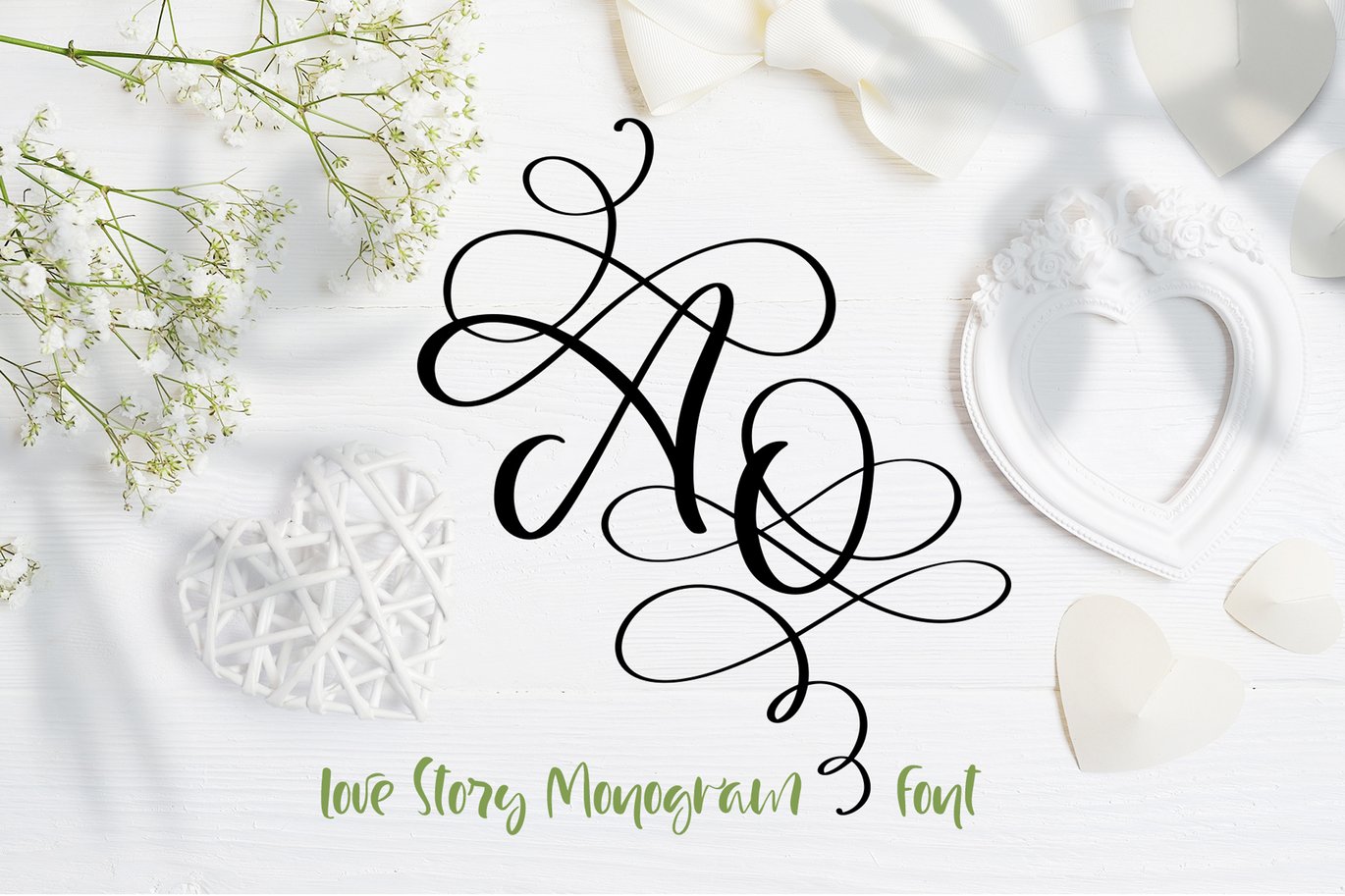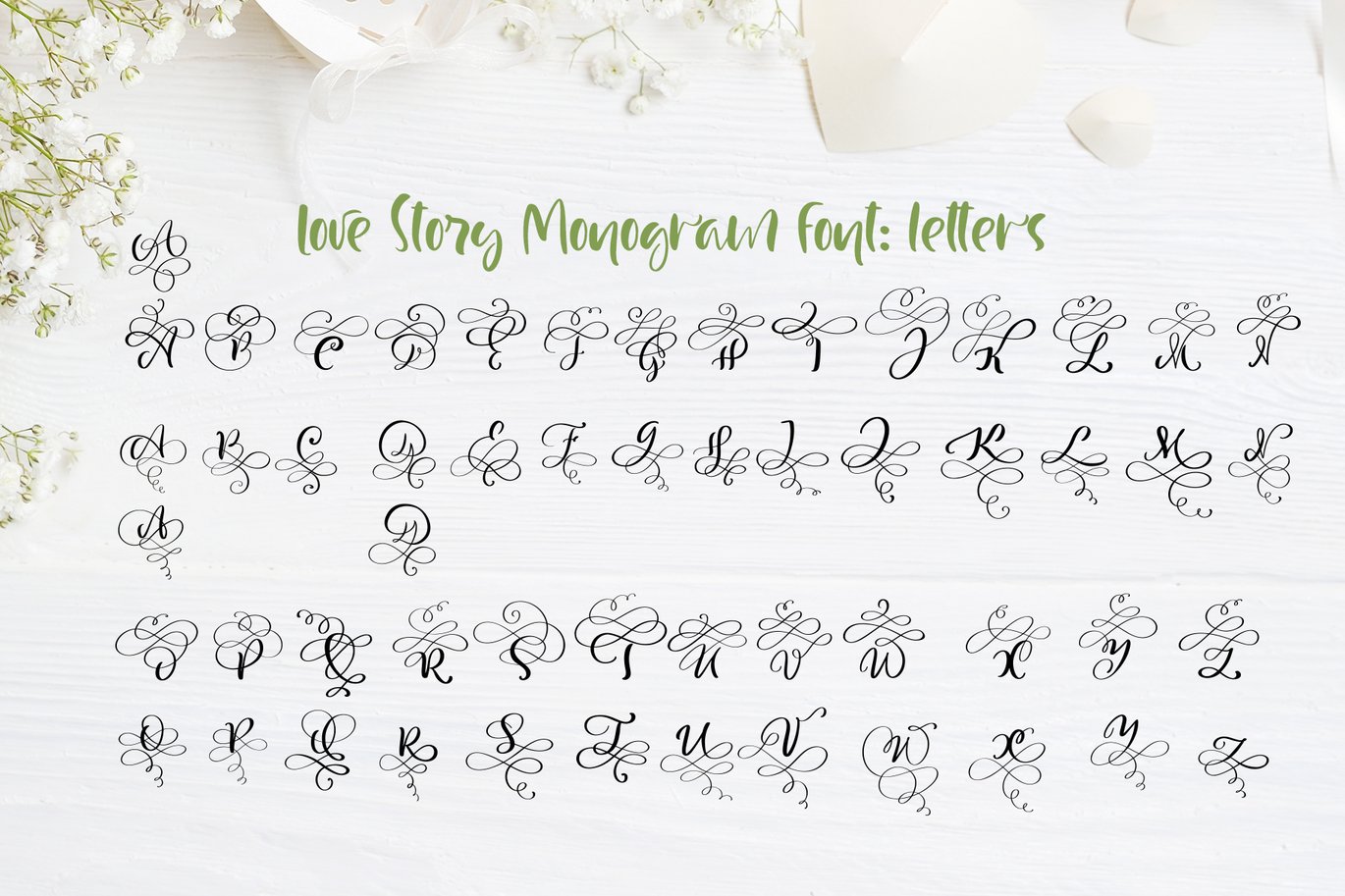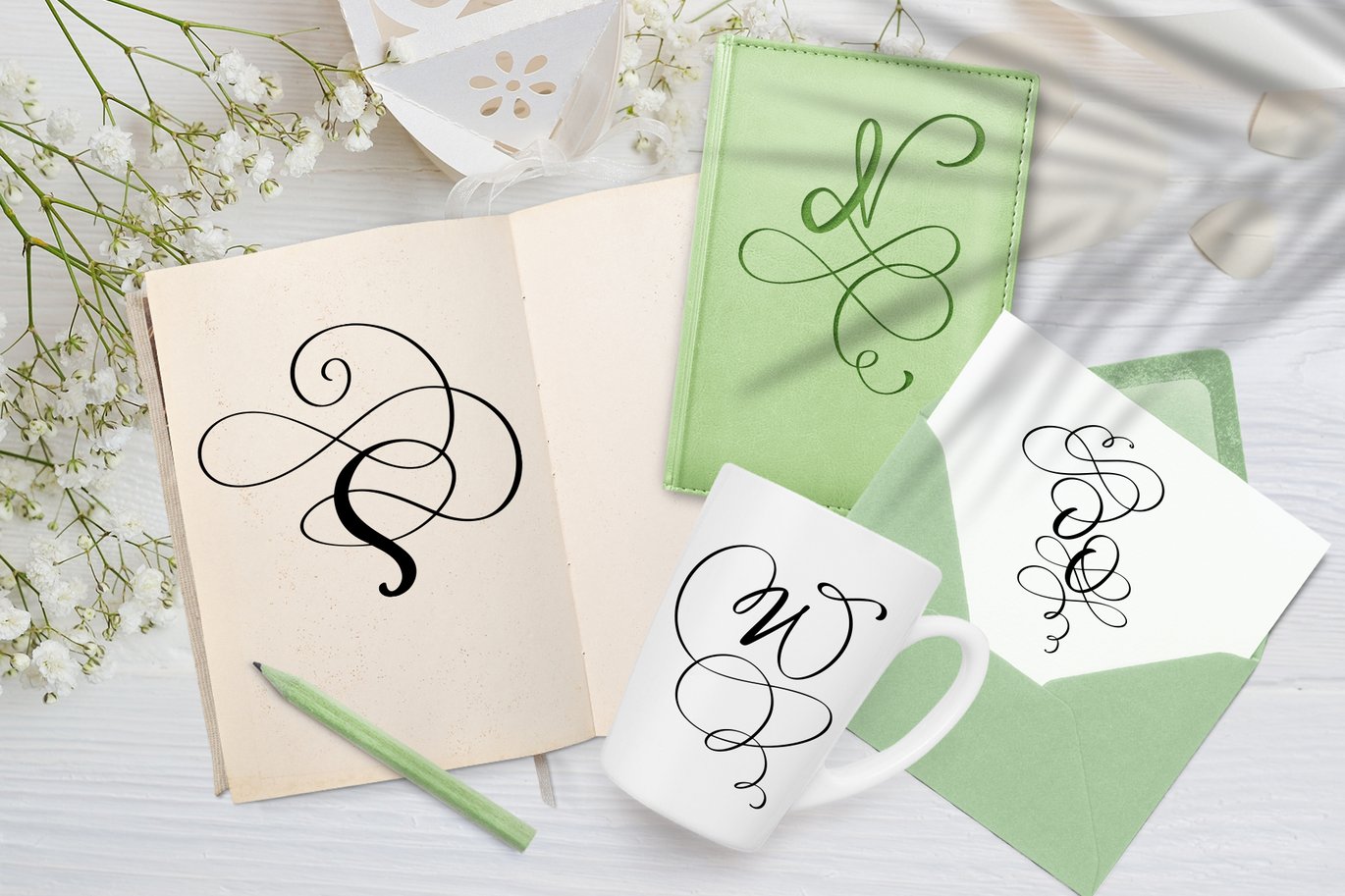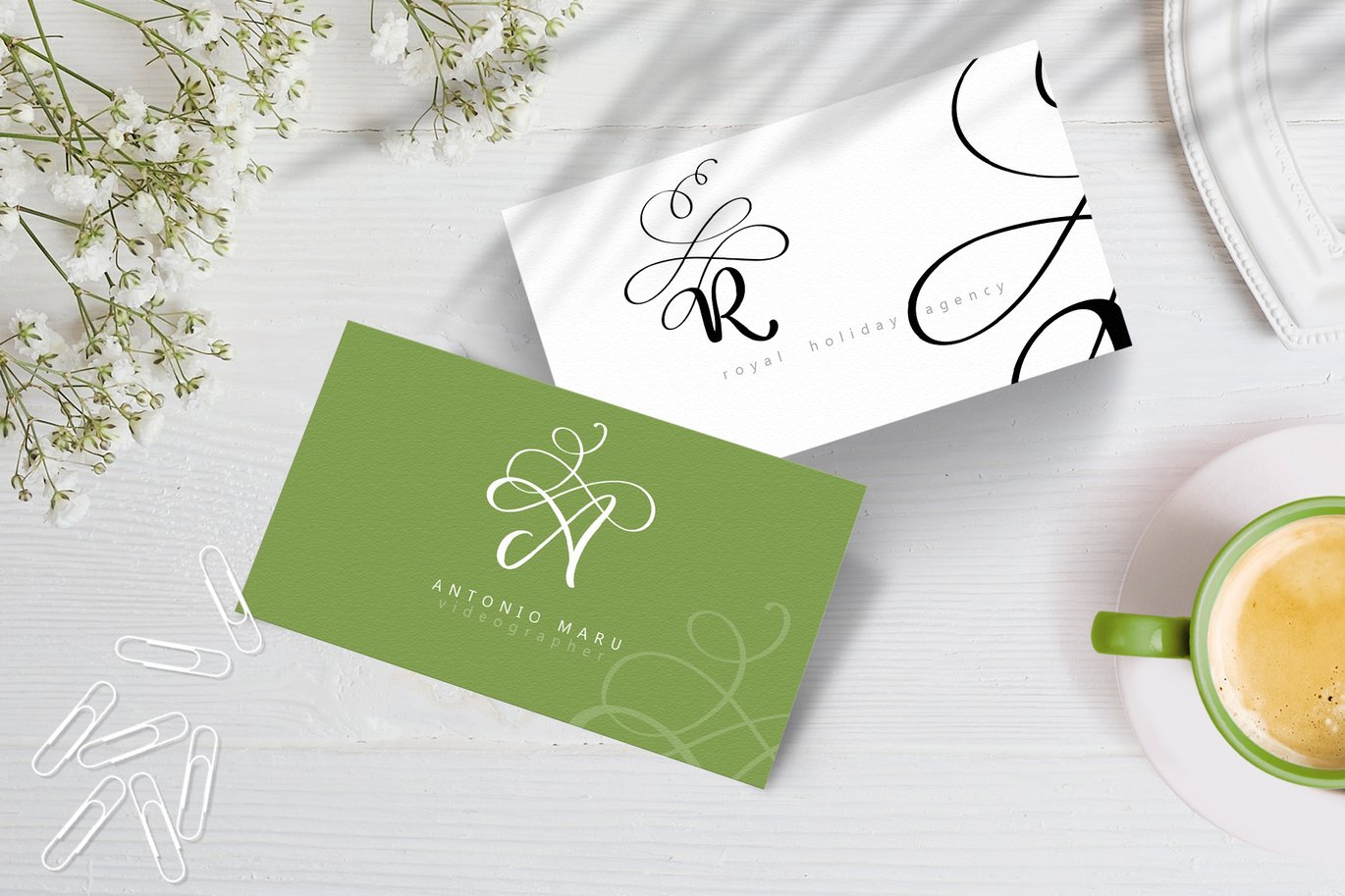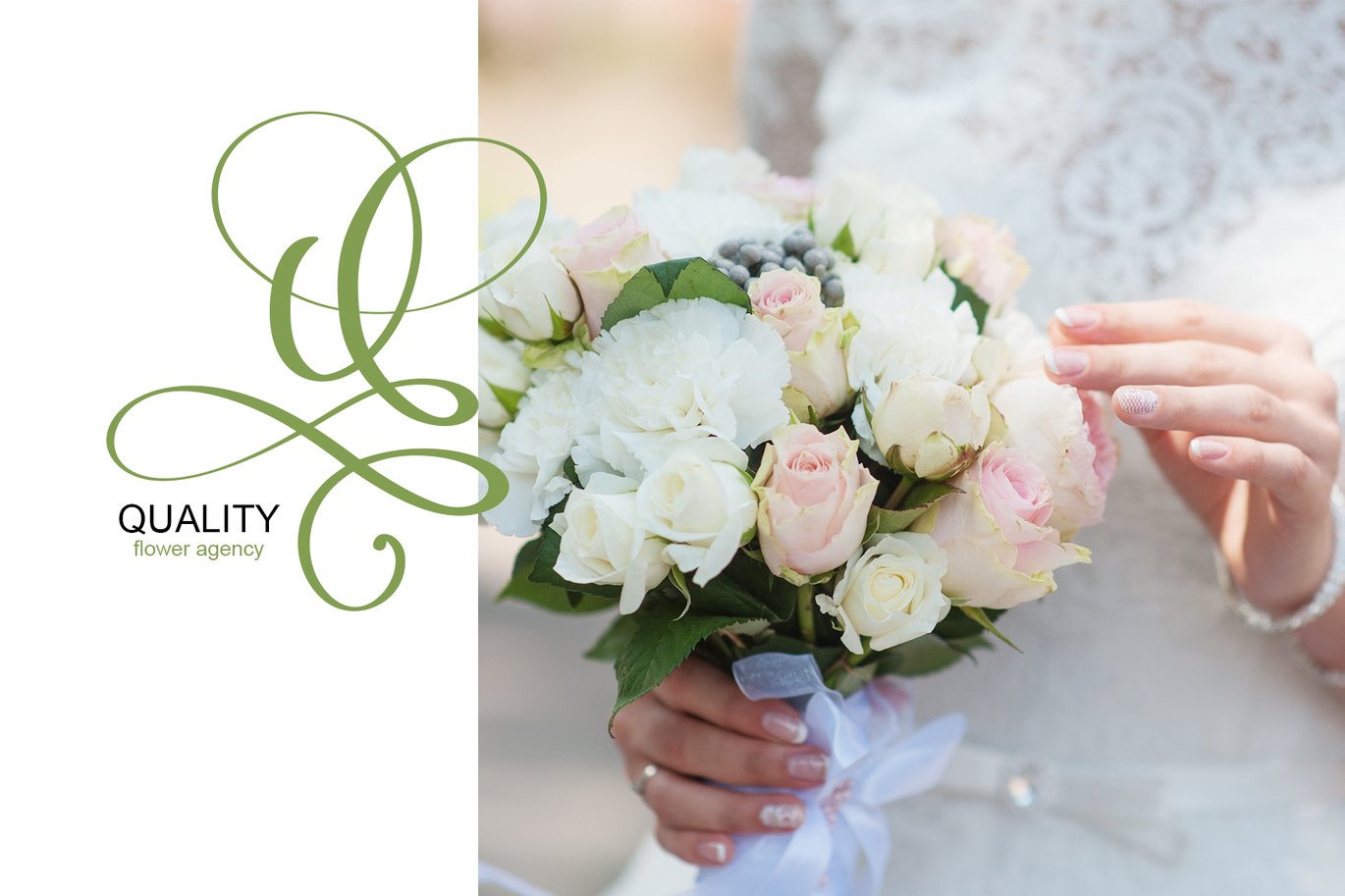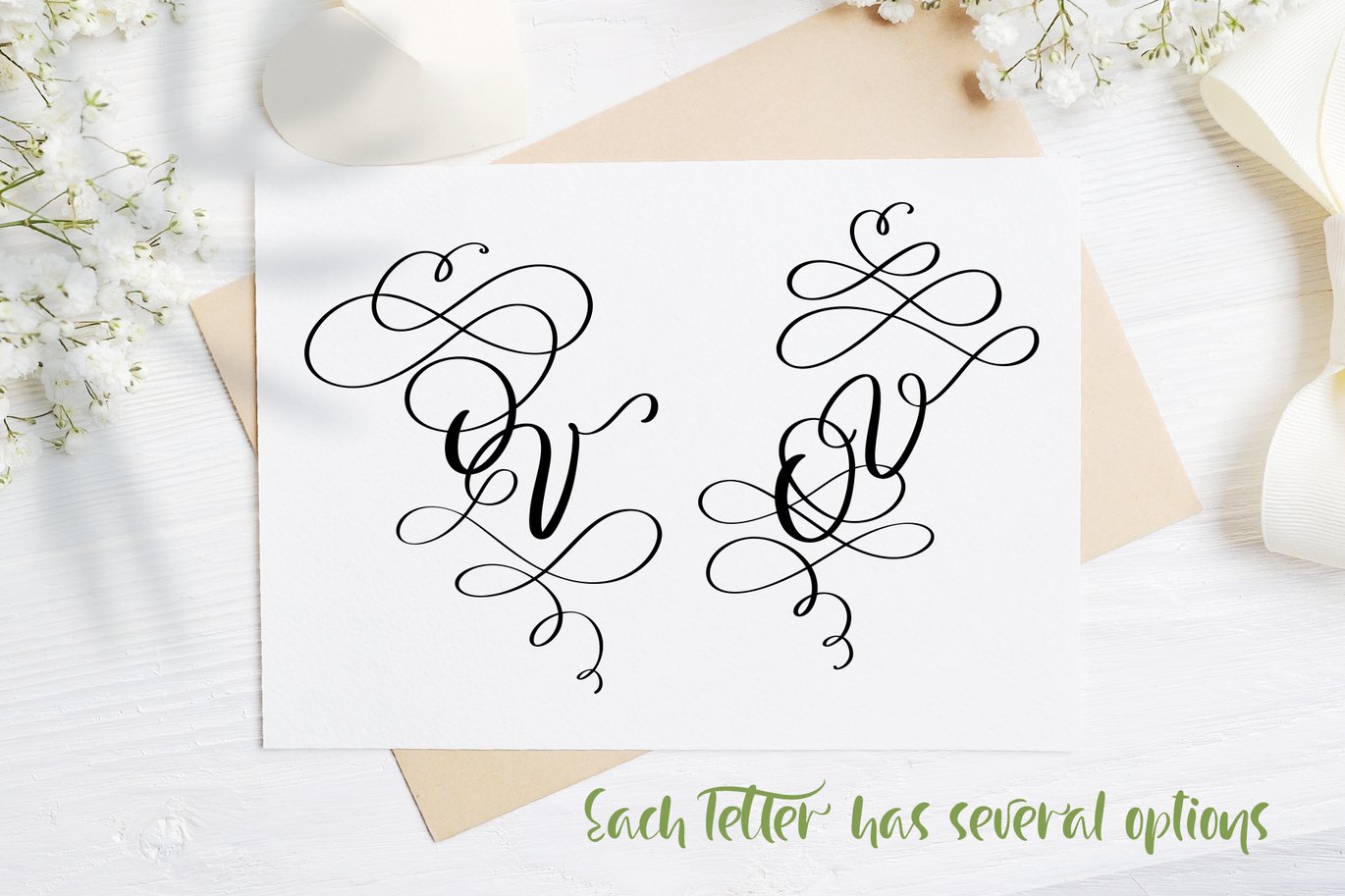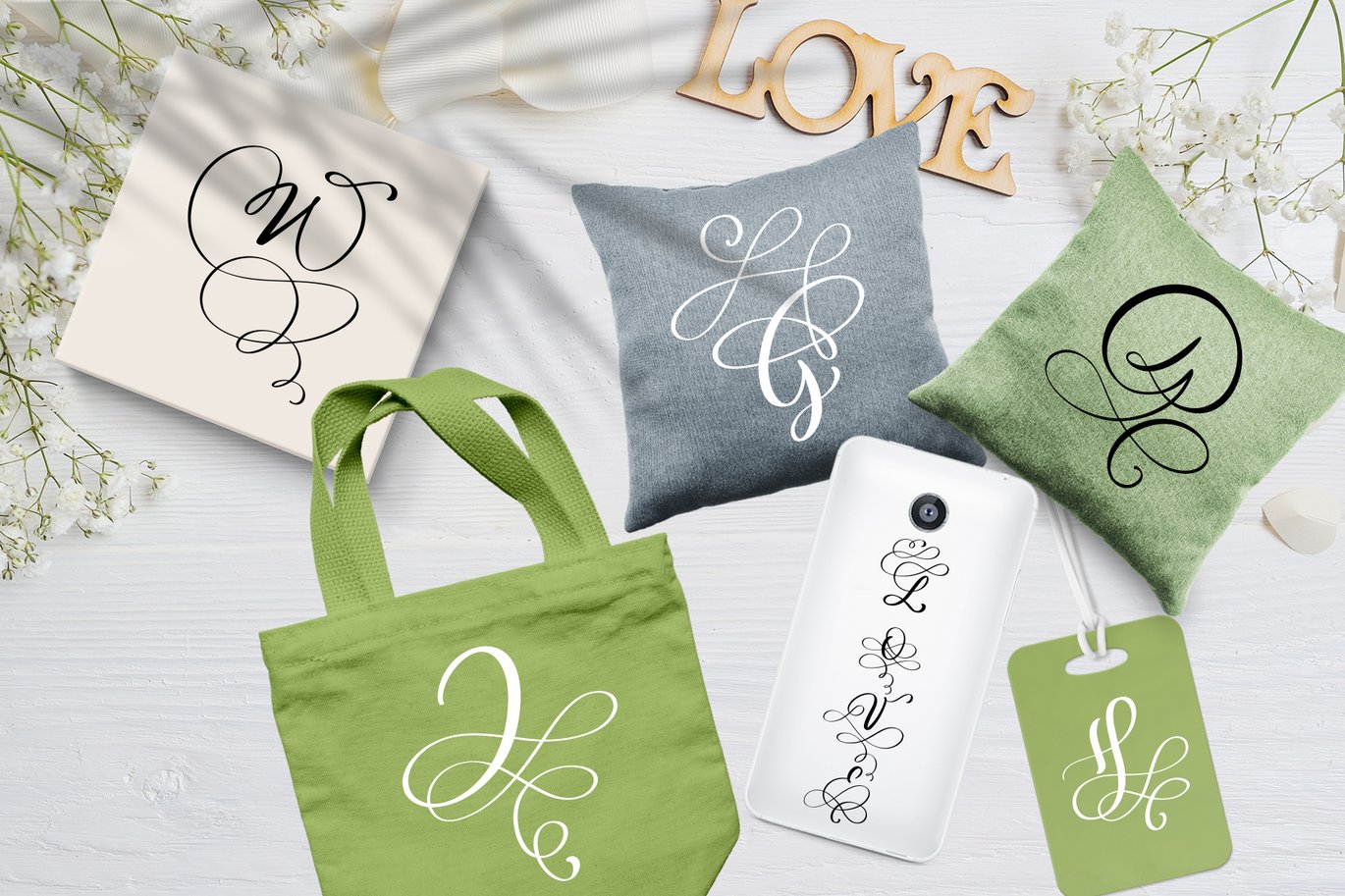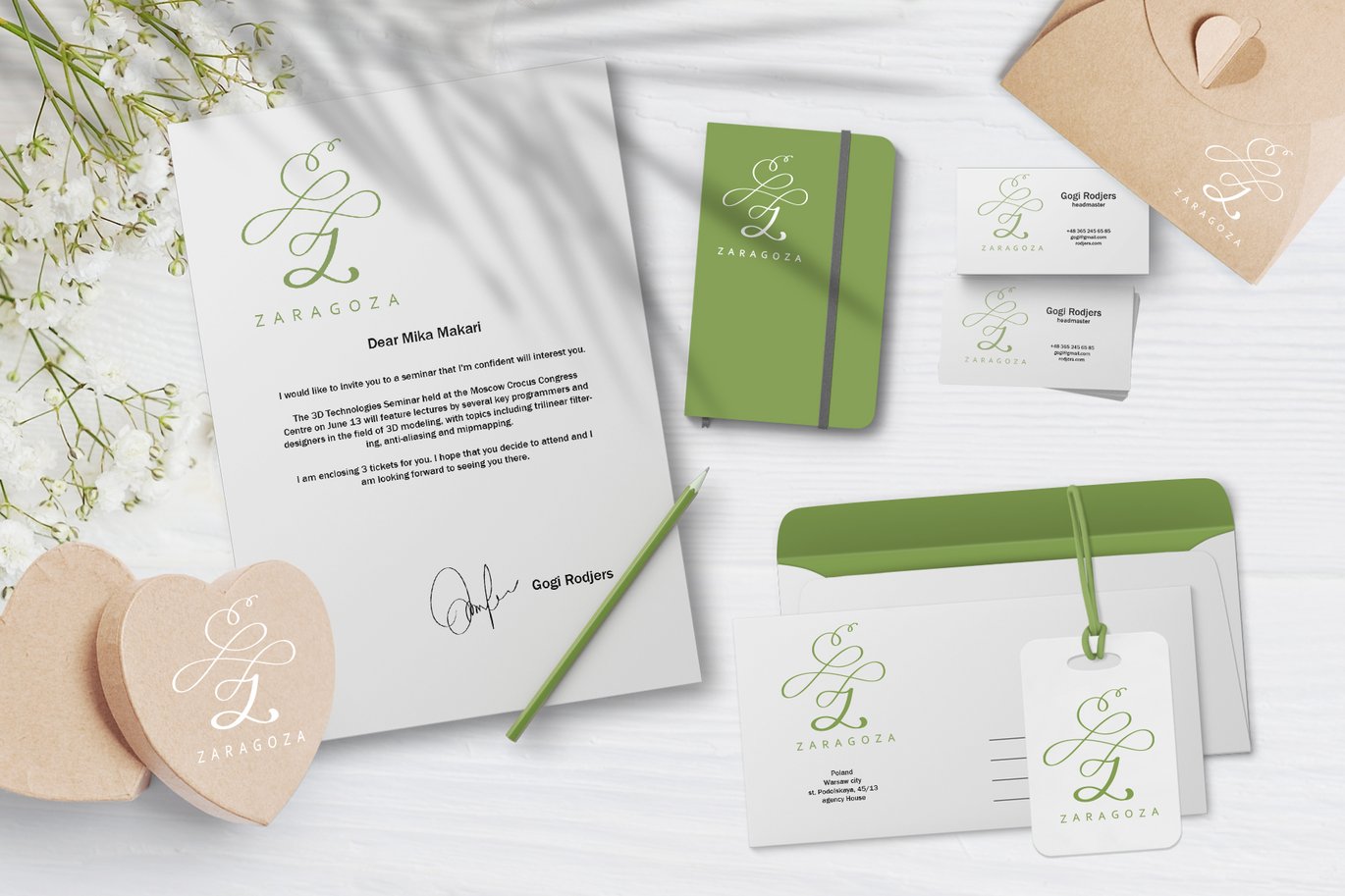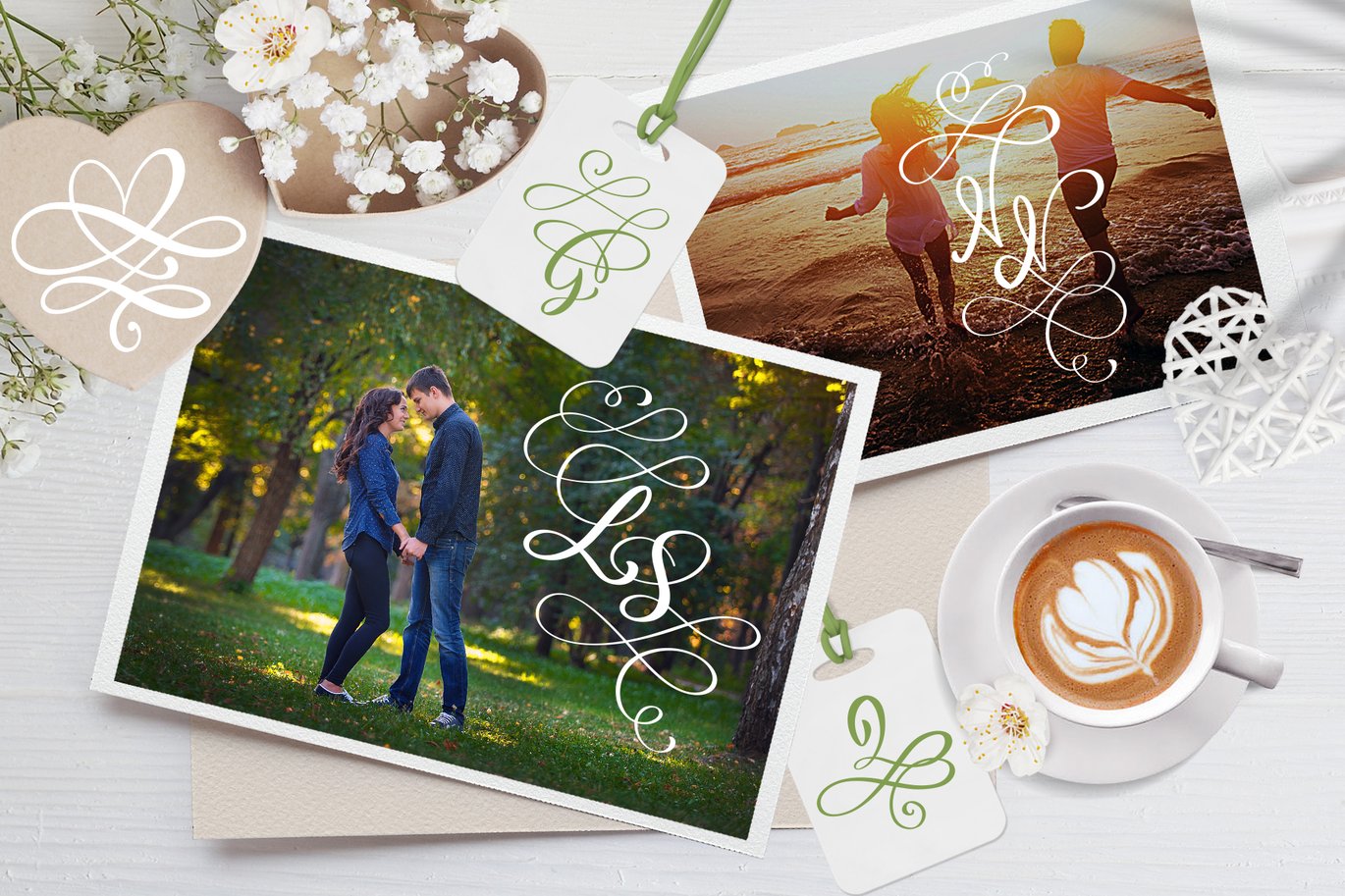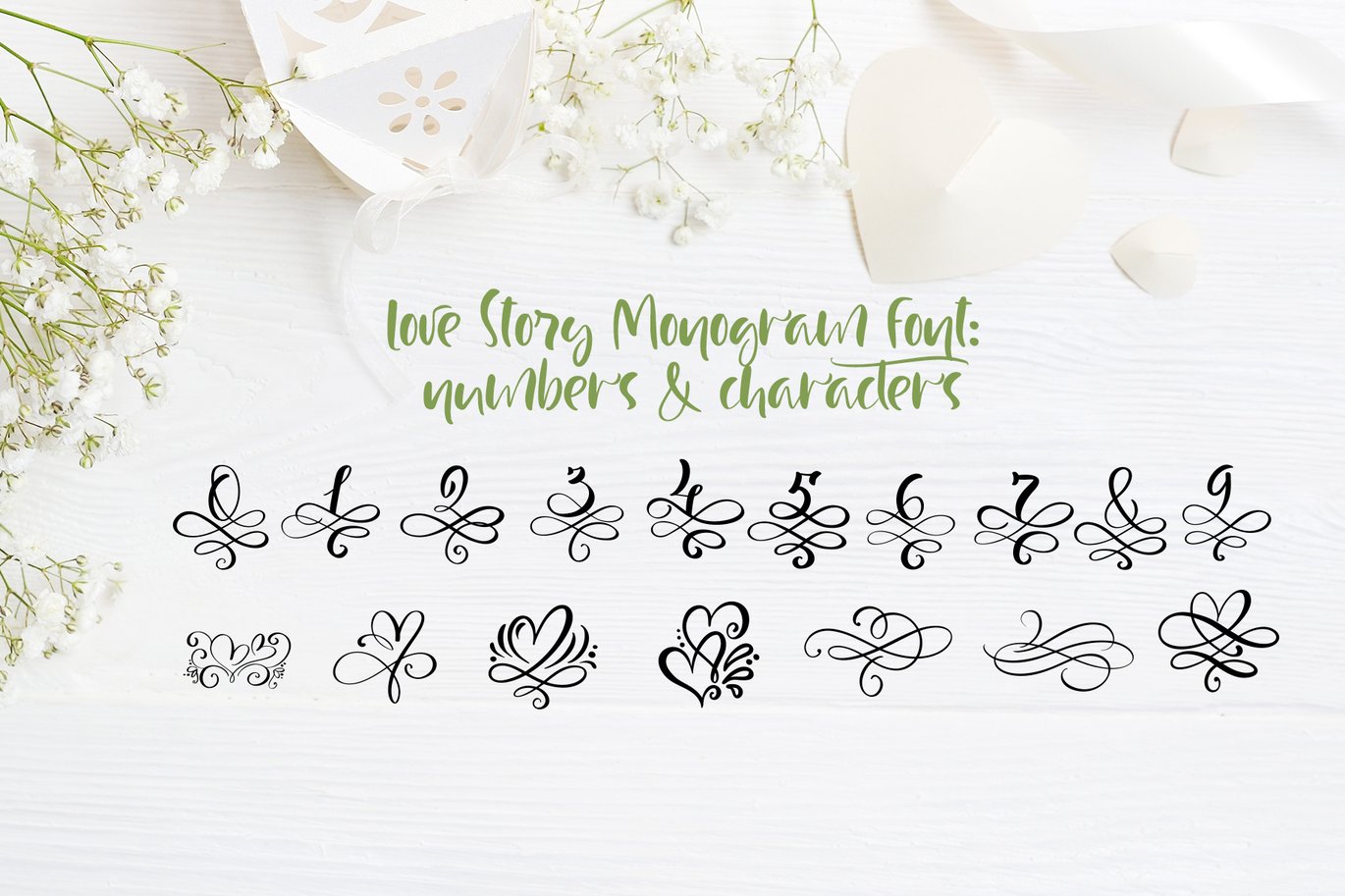
Love Story Monogram Font
Love Story Monogram Font includes unique flourishes swirl letters that give romantic and love for wedding holiday greeting cards, invitations, etc. Thin, elegant calligraphic lines give freshness to your handmade design.
In this font, the upper curls are in CAPITAL letters and the lower curls are in lowercase letters. Therefore, you can choose pairs for monograms for example – Ab, Lo, Bj. or probable to try other variants.
Letter A and D has alternatives.
Also, instead some of exclamation mark there are illustrations of hearts.
PERFECT FOR
Decorate your albums, wedding and holiday greeting cards (Christmas, Birthday, Valentine’s Day other holidays), logos, gift shops, tag, social media, internet shops presentation.
- This font is not for writing words or sentences, but for monograms. For example A&H.